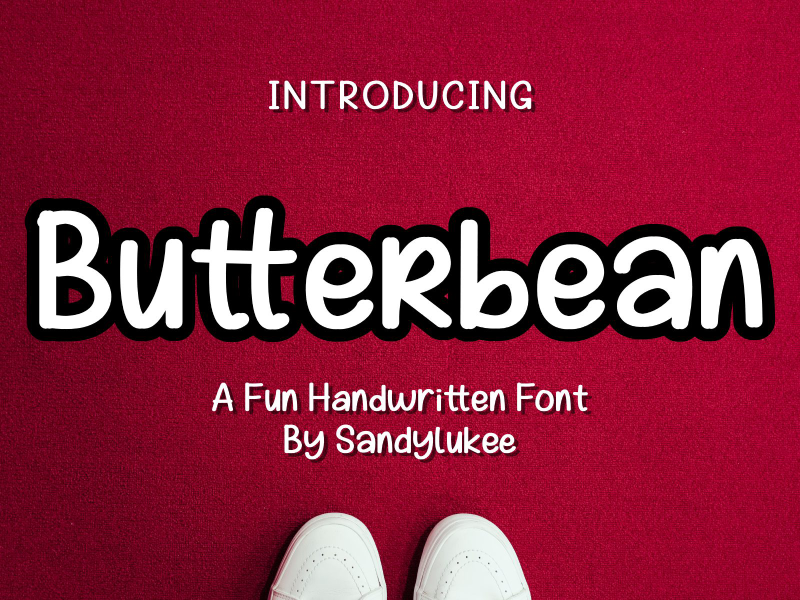
Introducing Butterbean - A Funny Handwritten Font by Sandylukee It's a great font for your any design especially for fun, kids, young, colorfull theme purpose. buy this font that completed with international language support glyphs and many symbol here: https://www.creativefabrica.com/product/butterbean/ref/236440/ or https://gum.co/CoScV I also add some ligatures and alternative characters so it'll make your design more fresh. If there is a problem with this font, feel free to ask me via email at sandylukee@gmail.com. Thank You -Sandylukee- |